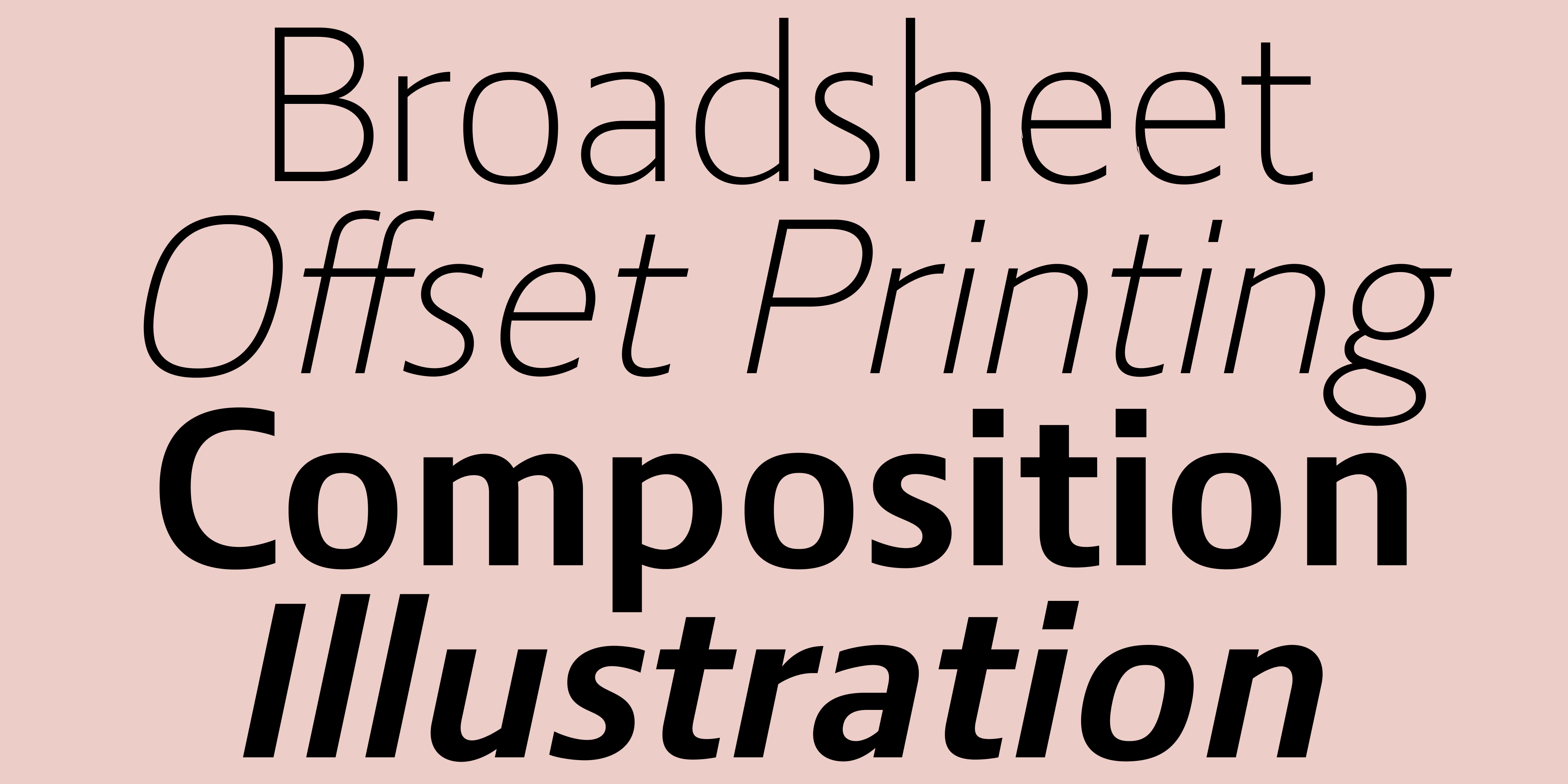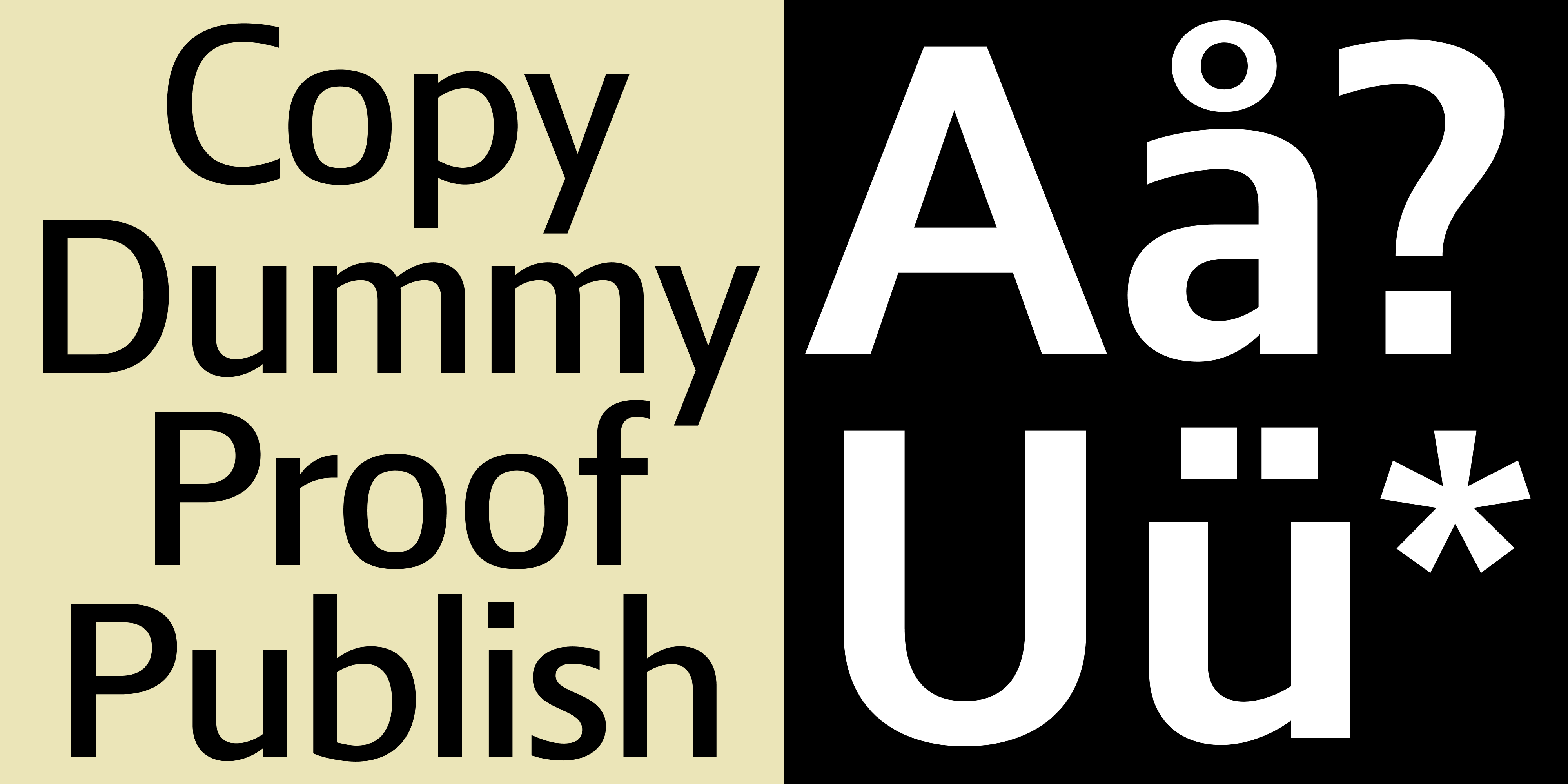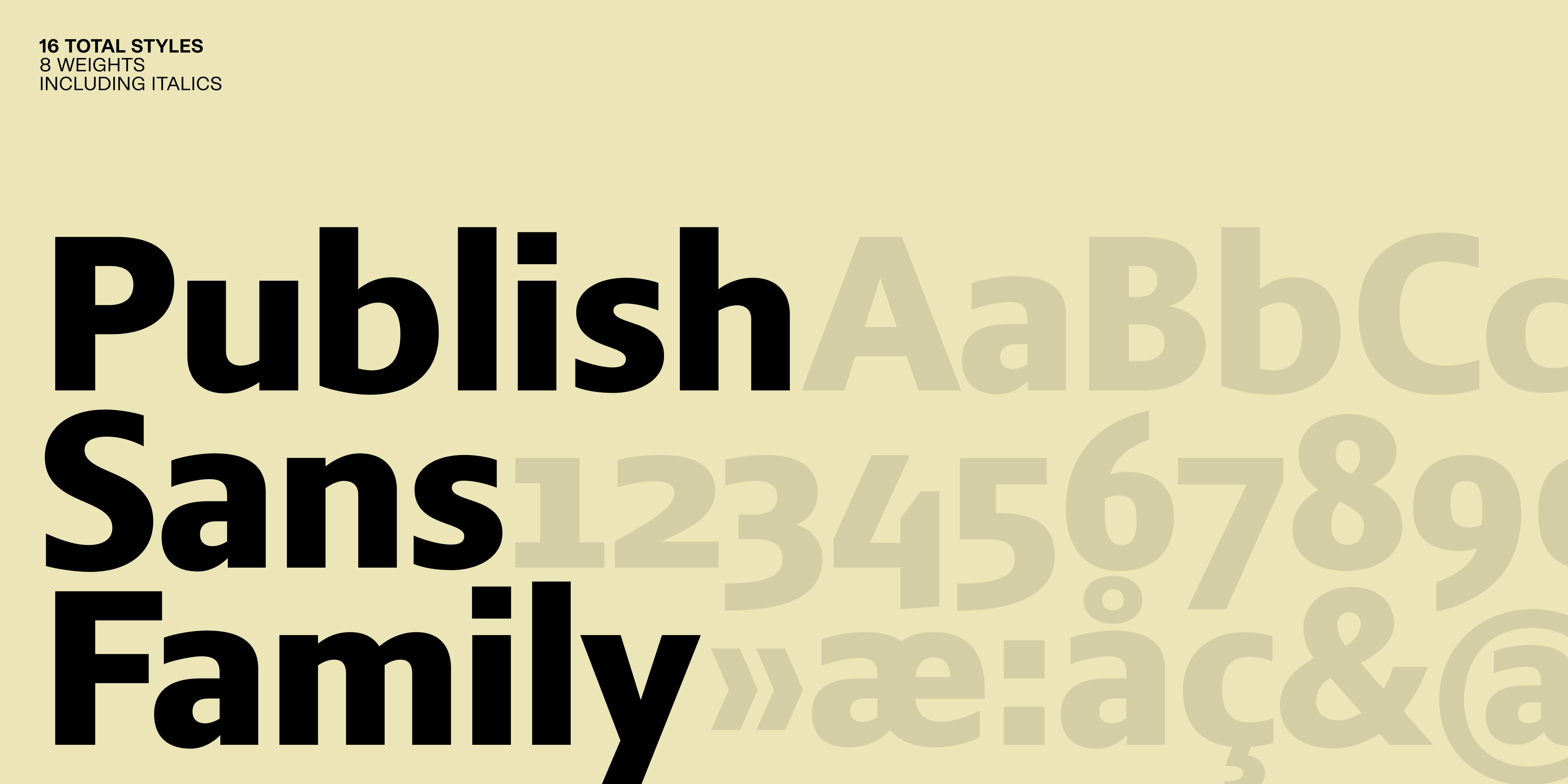
Publish Sans
Designer Jonas Hecksher
The Publish family was originally developed exclusively for the short-lived but ambitiously conceptual Danish newspaper ‘Dagen’ (The Day). Consisting of Publish Gothic, Publish Sans and Publish Serif, the family is now available for all to enjoy.
Publish Sans is a no-nonsense functional sans serif typeface, sharing proportions with its feeted relative Publish Serif. With its toned down character, open counters and squarish proportions Publish Sans can come across as a somewhat anonymous and formal communicator.
Publish Sans is available in a wide range of weights and supports a multitude of opentype features making it a great and versatile text typeface.